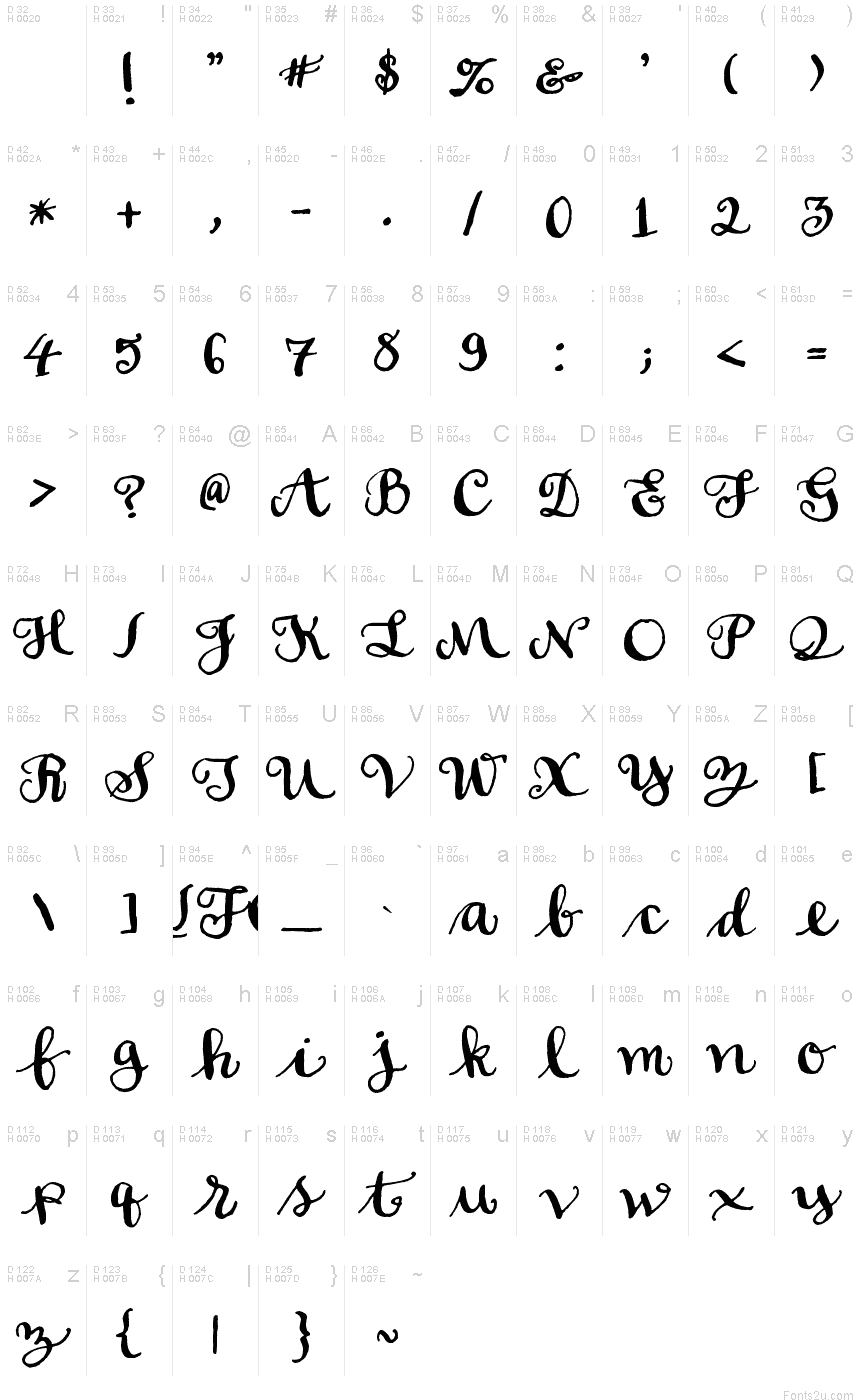
Soft Script from FontPanda.com is a free calligraphic script with long looping strokes and sharply changing line widths. Oversized flourishes and bouncing letter heights give each word a loose signature shape.
Boutique fashion labels and independent beauty brands could use this lively lettering for logos, packaging, and campaign graphics. The uneven connections and sweeping forms can also become part of album artwork or informal event invitations, especially when the design favors movement and a personal finish. It is aimed most squarely at makers and small brands that favor expressive, handmade design.